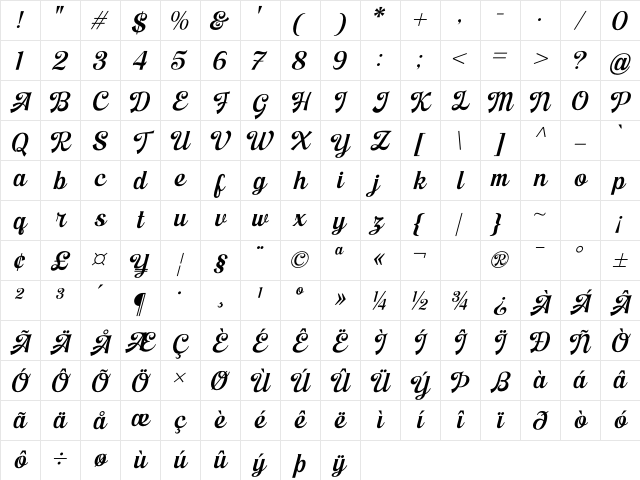
Ampher Regular Free Font
Ampher Regular
Designer: Yudi Pratama Chandra
Design Context for Ampher
Ampher is a composed and adaptable typeface that performs quietly and consistently across a wide range of design contexts.